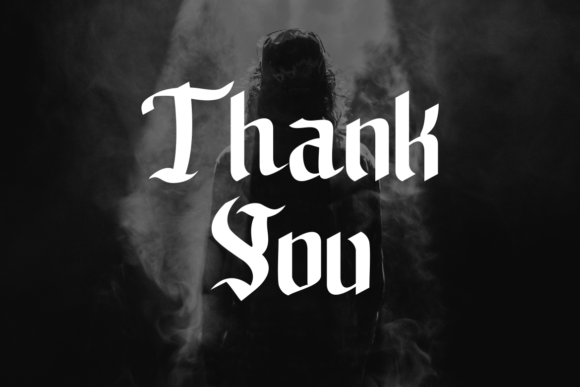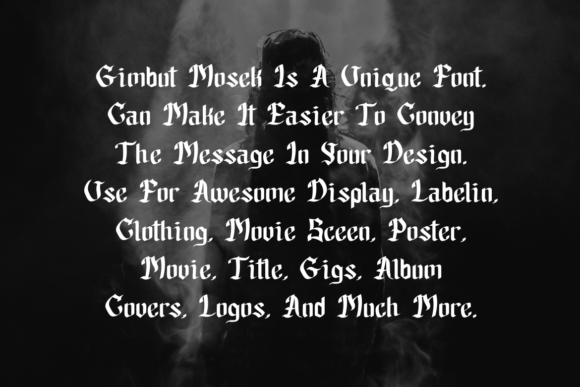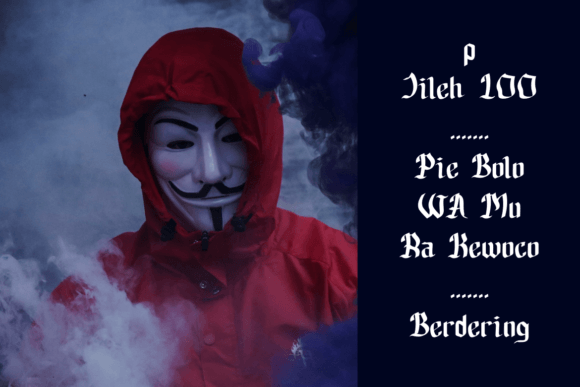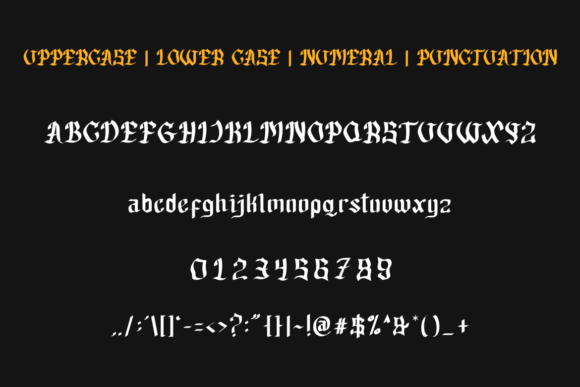
Gimbut Mosek Font: A Bold and Thick Lettered Blackletter Font for Your Creative Projects
Are you looking for a font that can add a touch of elegance and sophistication to your designs? Look no further than the Gimbut Mosek font. This bold and thick lettered blackletter font is perfect for designers and crafters who want to make a statement with their work. In this article, we’ll take a closer look at the Gimbut Mosek font, its features, and how you can use it to take your projects to the next level.
What is Gimbut Mosek Font?
Gimbut Mosek is a bold and thick lettered blackletter font that is perfect for creating striking headlines, titles, and text. Its unique design makes it stand out from other fonts, and its versatility ensures that it can be used in a variety of projects, from branding and advertising to packaging and signage.
Key Features of Gimbut Mosek Font
So, what makes Gimbut Mosek font so special? Here are some of its key features:
• Bold and Thick Lettering: The Gimbut Mosek font features bold and thick lettering that is perfect for creating eye-catching headlines and titles.
• Blackletter Style: The font has a classic blackletter style that gives it a unique and distinctive look.
Benefits of Using Gimbut Mosek Font
So, why should you use the Gimbut Mosek font in your projects? Here are some of the benefits of using this font:
• Easy to Read: The bold and thick lettering of the Gimbut Mosek font makes it easy to read, even at small sizes.
• Versatile: The font can be used in a variety of projects, from branding and advertising to packaging and signage.
• Unique Design: The Gimbut Mosek font has a unique design that will help your projects stand out from the crowd.
How to Use Gimbut Mosek Font
Using the Gimbut Mosek font is easy. Here are some tips to get you started:
• Pair it with Other Fonts: The Gimbut Mosek font can be paired with other fonts to create a unique and interesting look.
• Use it for Headlines and Titles: The font is perfect for creating eye-catching headlines and titles.
• Experiment with Different Sizes: The Gimbut Mosek font can be used at a variety of sizes, from small to large.
Who Can Benefit from Gimbut Mosek Font?
The Gimbut Mosek font is perfect for a variety of designers and crafters, including:
• Graphic Designers: The font is perfect for graphic designers who want to create striking headlines and titles.
• Advertising Agencies: The font can be used by advertising agencies to create eye-catching ads.
• Crafters: The font is perfect for crafters who want to add a touch of elegance and sophistication to their projects.
In conclusion, the Gimbut Mosek font is a bold and thick lettered blackletter font that is perfect for designers and crafters who want to make a statement with their work. Its unique design, versatility, and ease of use make it a great addition to any project. So, why not give it a try and see the results for yourself?